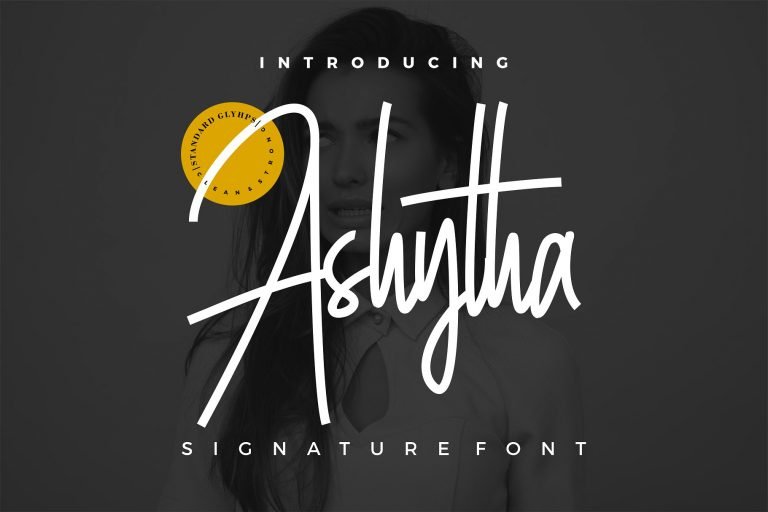
Ashytha Signature Font
The most beautiful typeface today I would like to introduce to you is a signature font. Introducing Ashytha, font created by 24Design Stds. Give your designs an authentic handcrafted feel. Ashyta is perfectly suited to signature, stationery, logo, typography quotes, magazine or book cover, website header, clothing, branding, packaging design and more.